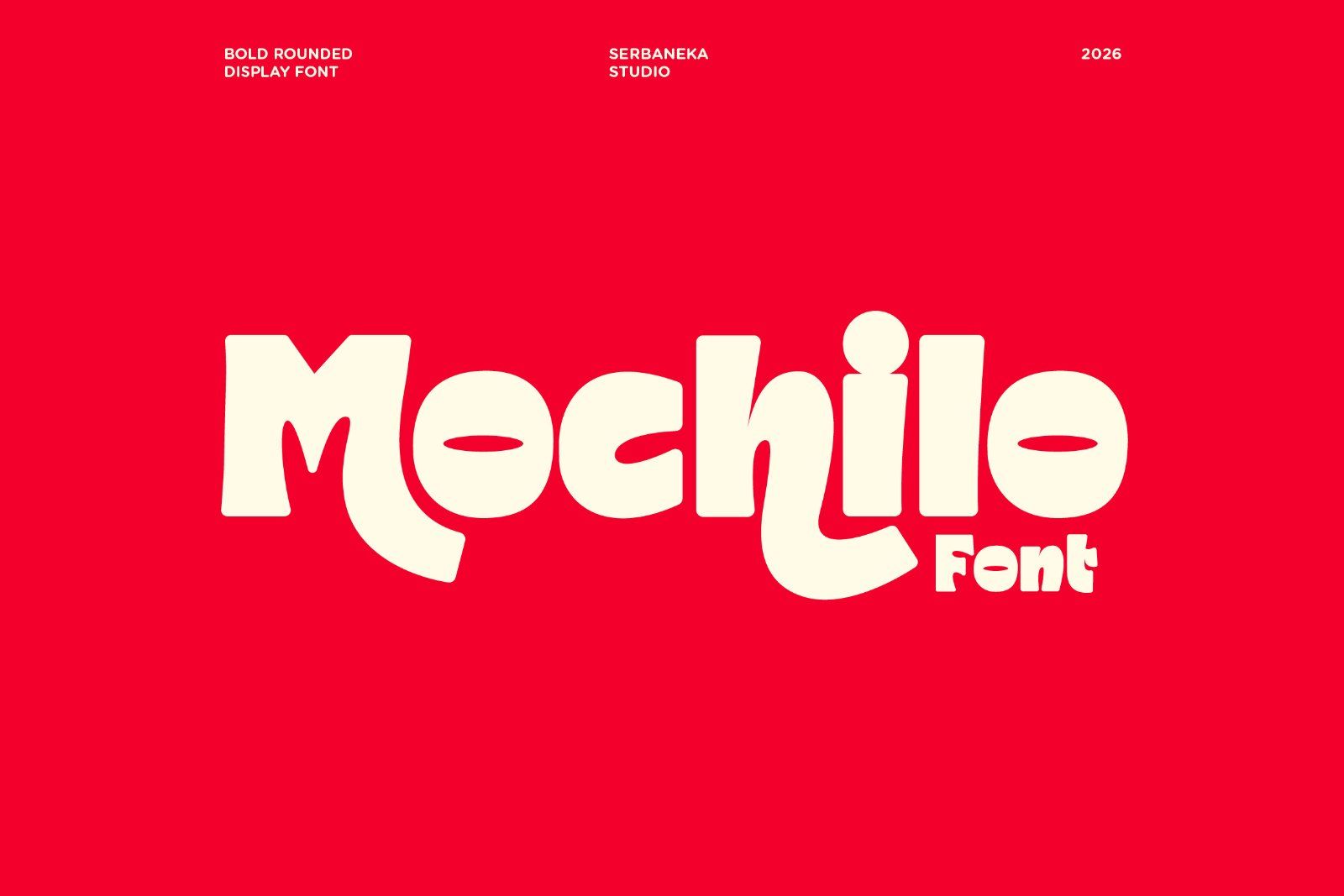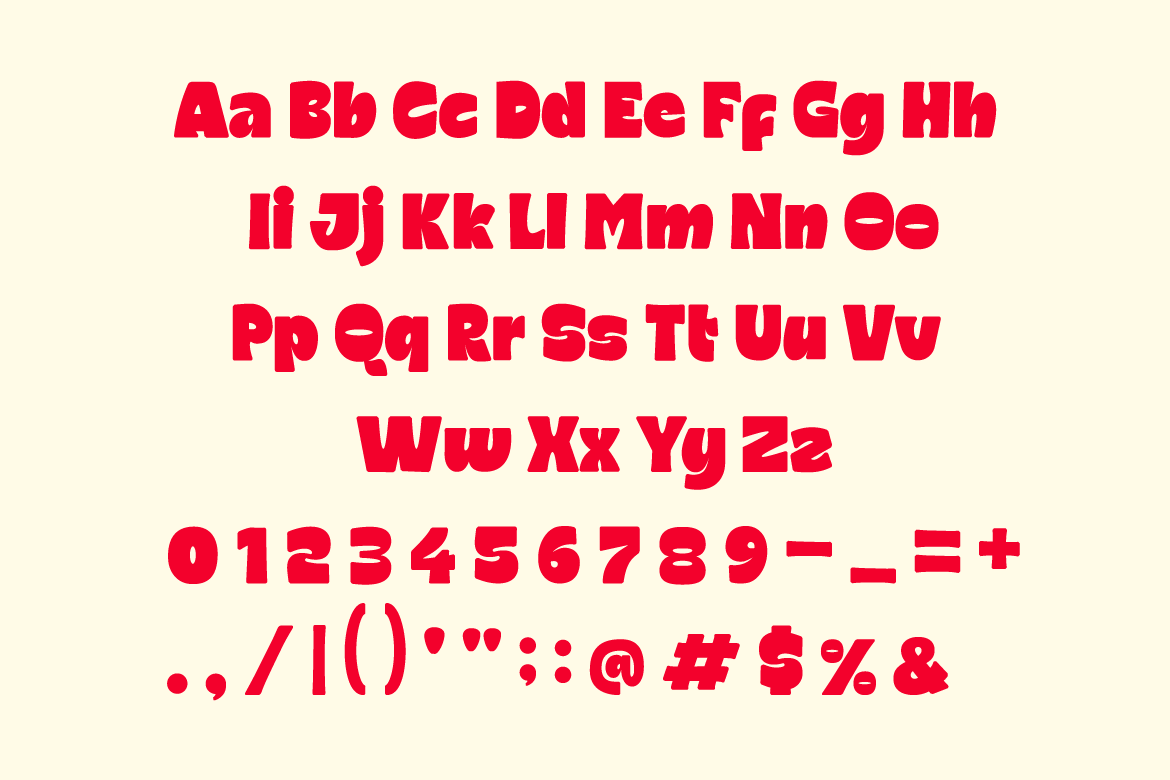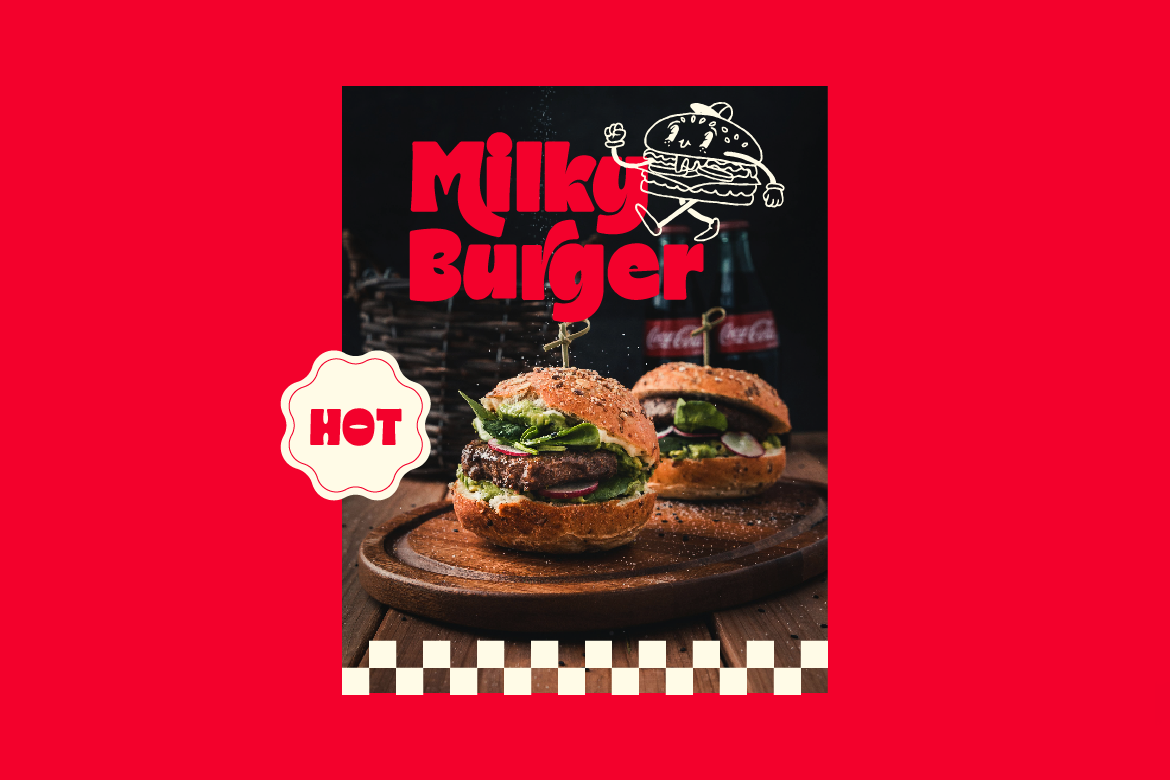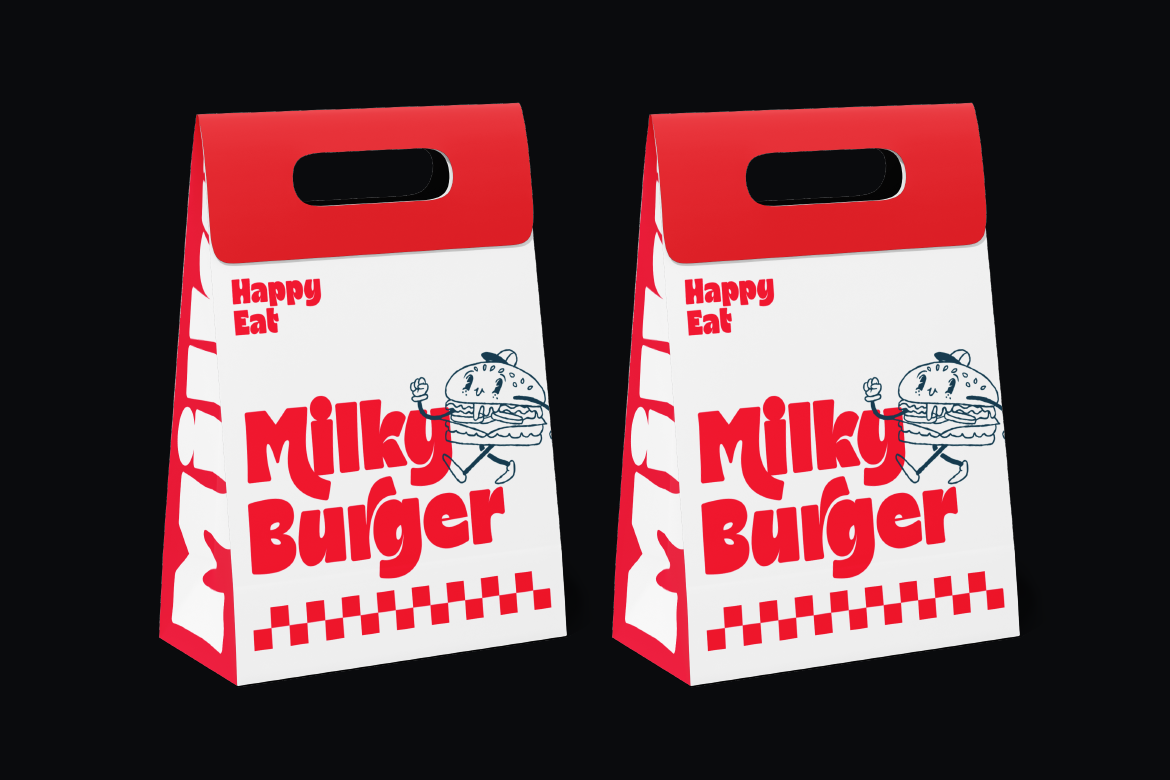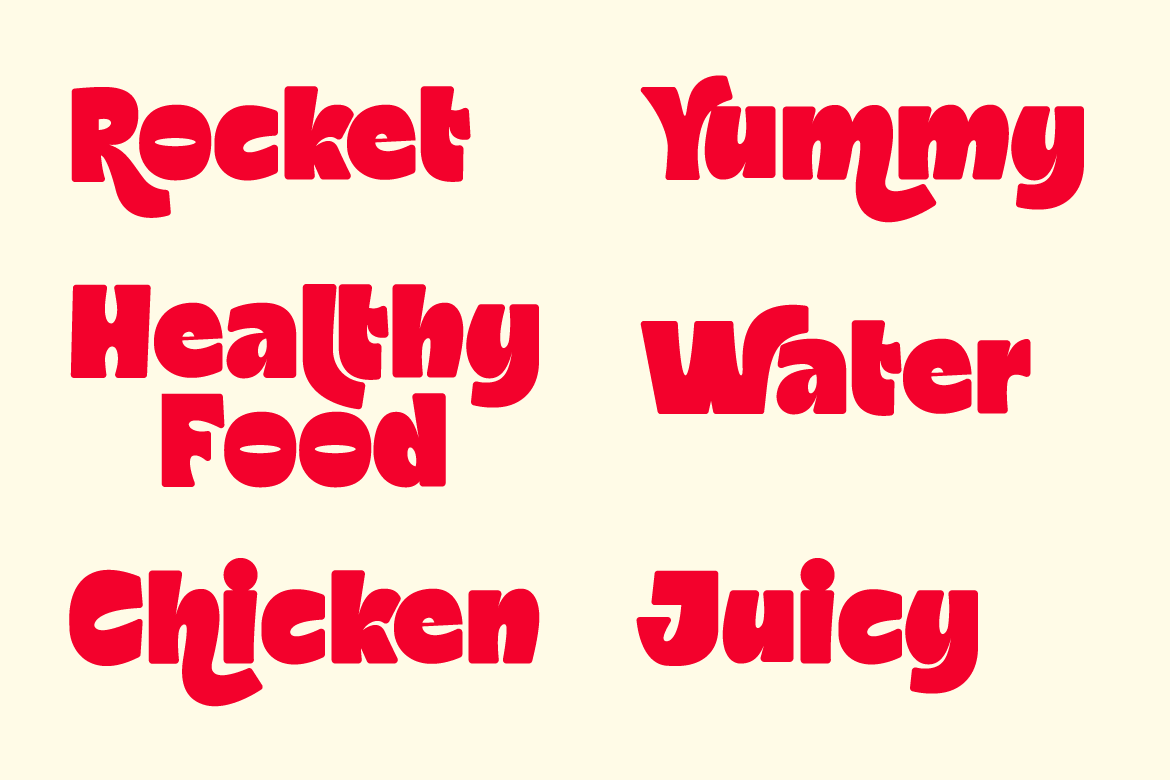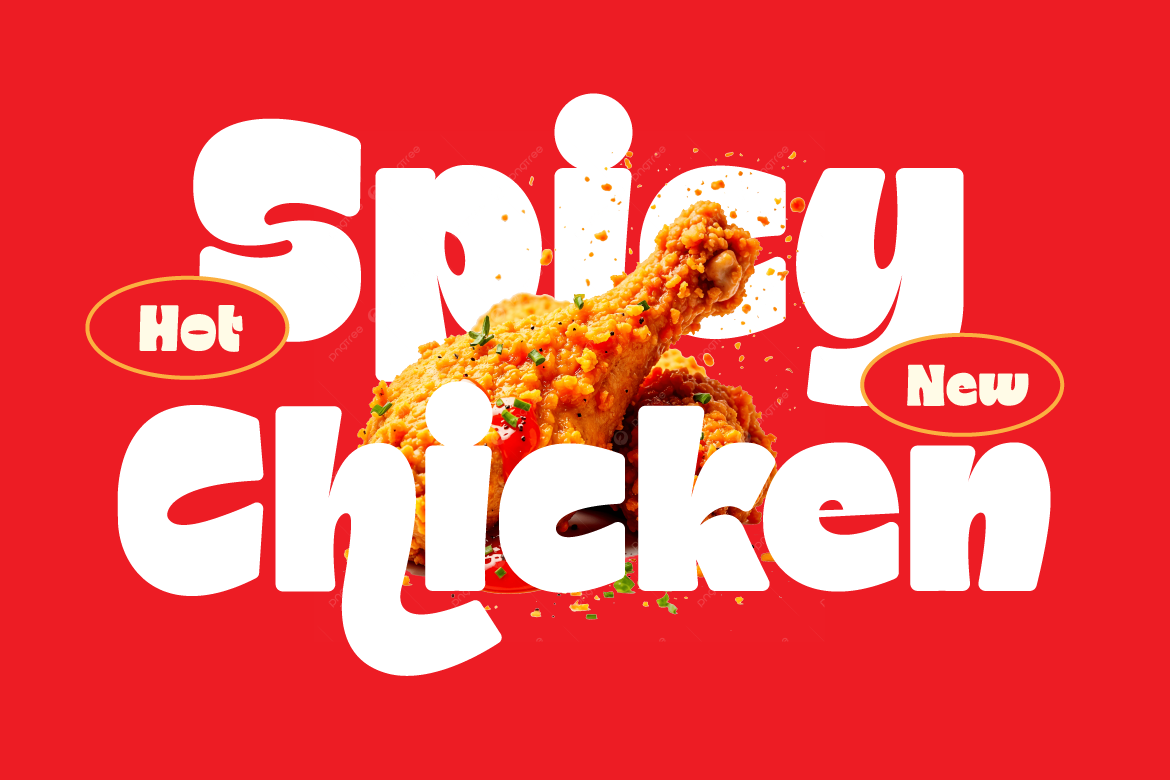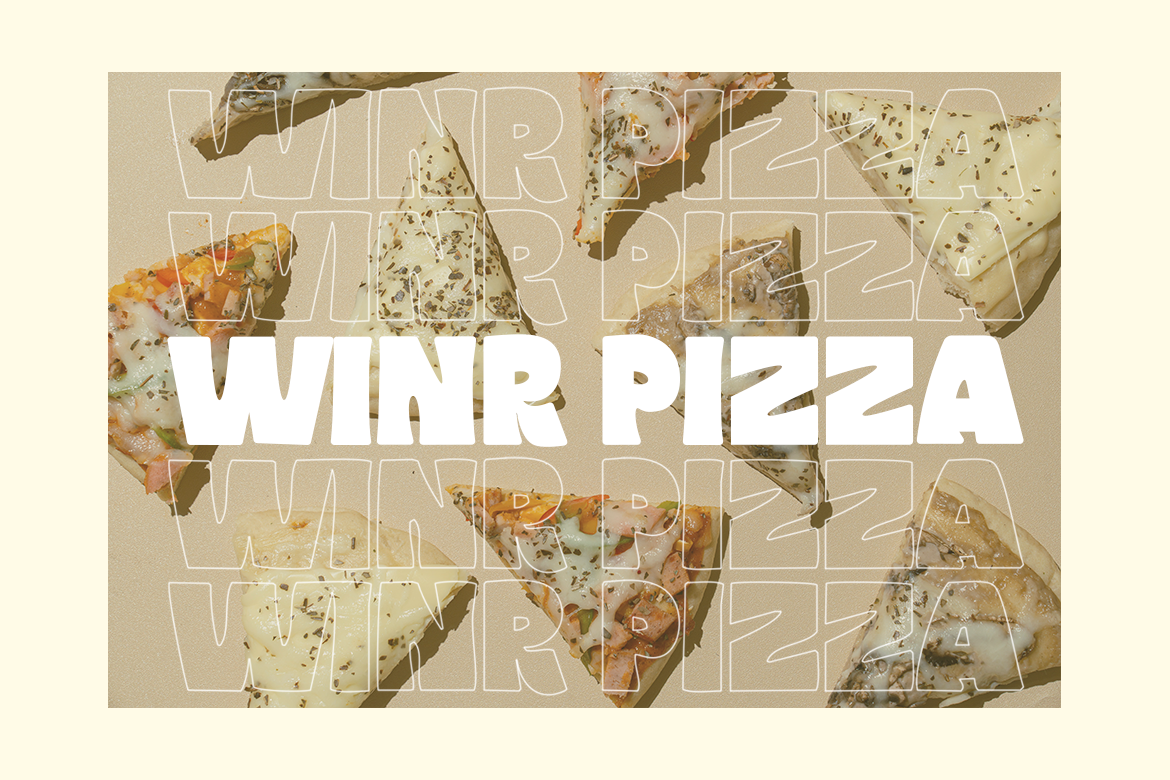
Mochilo is a bold rounded display font with a playful and cheerful personality. Featuring soft curves, chunky letterforms, and eye-catching alternates, this typeface brings a fun and friendly feel to any design.
Perfect for food branding, burger shops, snack packaging, kids products, posters, café menus, logos, merchandise, and social media graphics. Its thick rounded shapes create a warm, approachable, and energetic look that instantly grabs attention.
With stylish alternate characters included, you can easily create more dynamic and unique typography compositions.
• Numbers & Punctuation
• Stylistic Alternates
• Bold Rounded Display Style
• Great for Food & Kids Branding
Make your designs more fun, bold, and delicious with Mochilo.